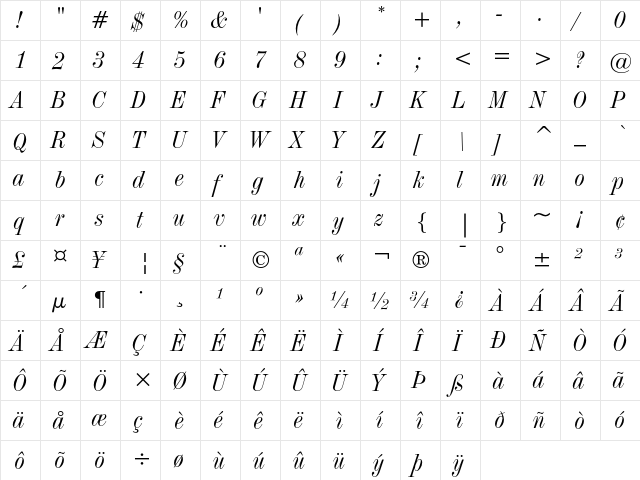
Industrial 736 Italic
Design Context for Industrial 736 Typeface
Industrial 736 offers clean, dependable letterforms without strong stylistic allegiance, making it a practical choice for designers who need flexibility. The dynamic lean of this cut emphasises speed and emphasis in any layout.
Pro Tip: Try Industrial 736 for annotation and caption copy alongside an upright companion — the contrast in angle creates a dynamic but ordered typographic system.